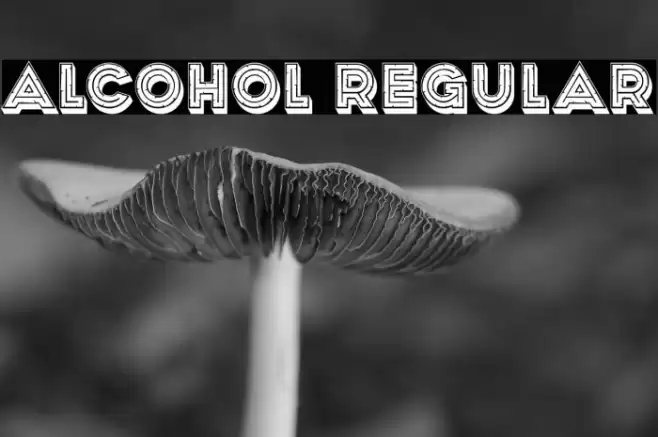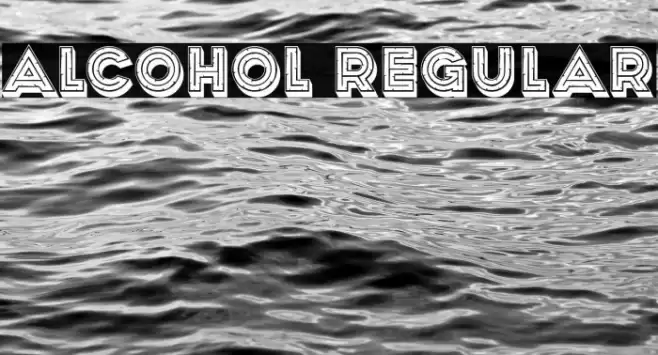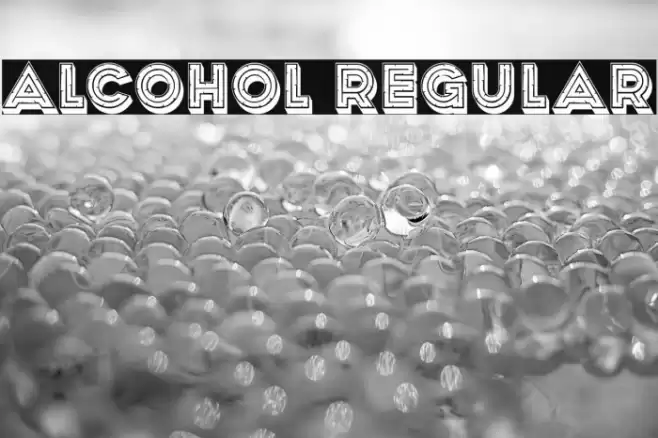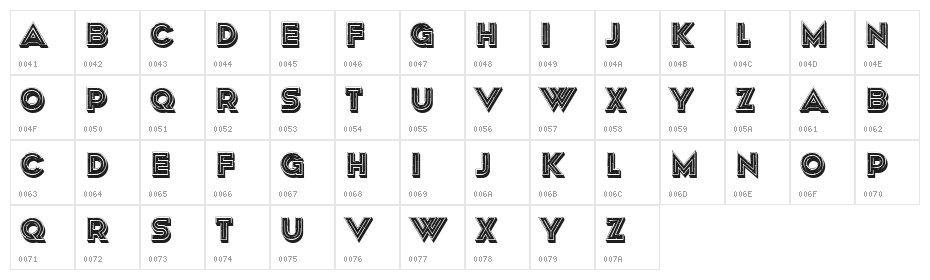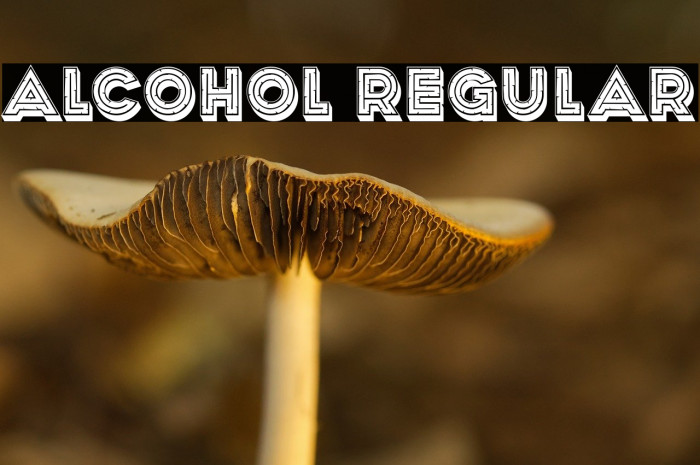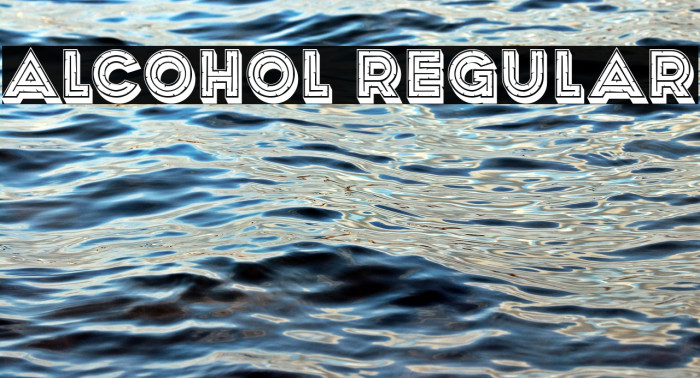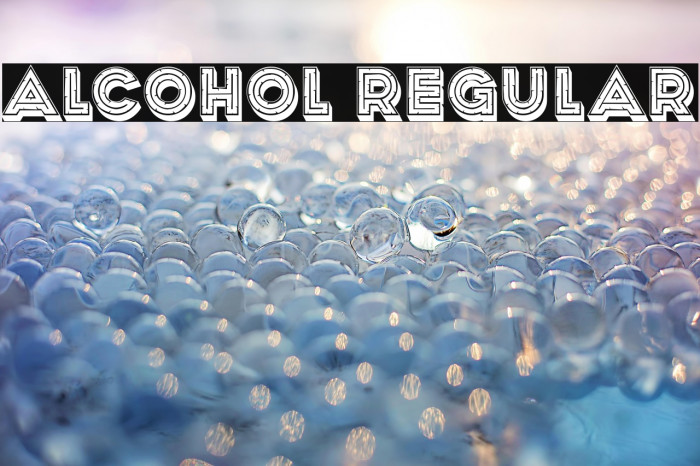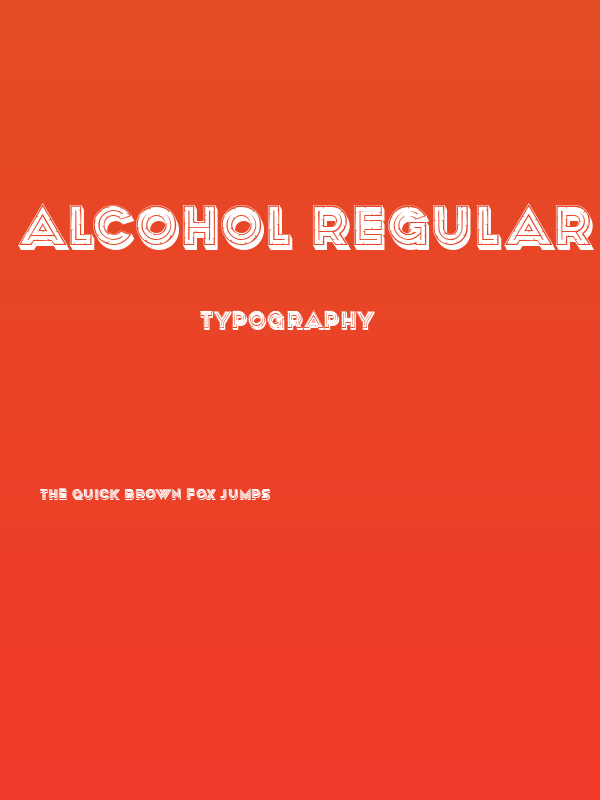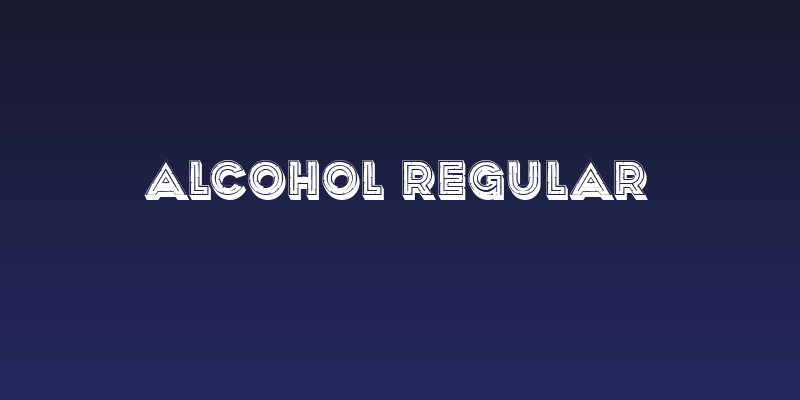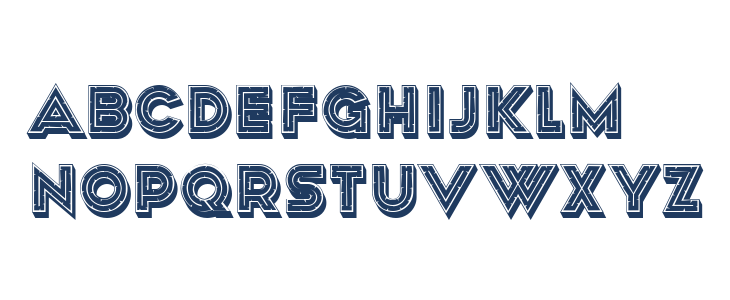
Alcohol Regular Font
Alcohol Regular Description
This font features a bold, geometric design with a distinct three-dimensional effect created by layered outlines. The uppercase letters are characterized by sharp angles and clean lines, giving it a modern and dynamic appearance. The font's structure is solid and impactful, making it ideal for attention-grabbing headlines and titles. Its unique style is reminiscent of vintage signage, yet it maintains a contemporary edge. The consistent stroke width and the intricate detailing within each character add depth and visual interest, making it suitable for creative and artistic projects.
A bold, geometric font with a three-dimensional layered effect, ideal for striking headlines from Uncategorized fonts.